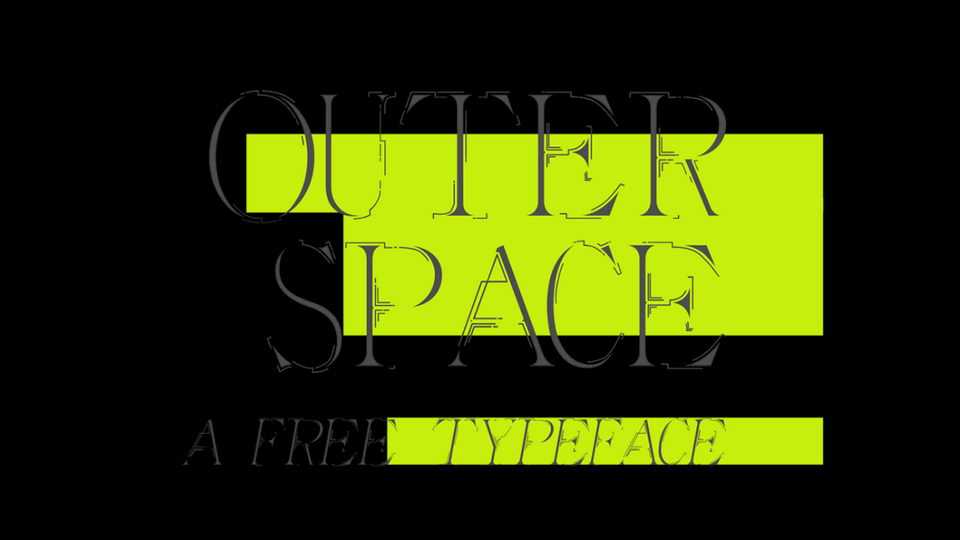
Download Outer Space font, an experimental serif typeface with distorted characters. Outer Space font looks great for posters, prints and other unique artworks.
Designer: Iordanis Passas